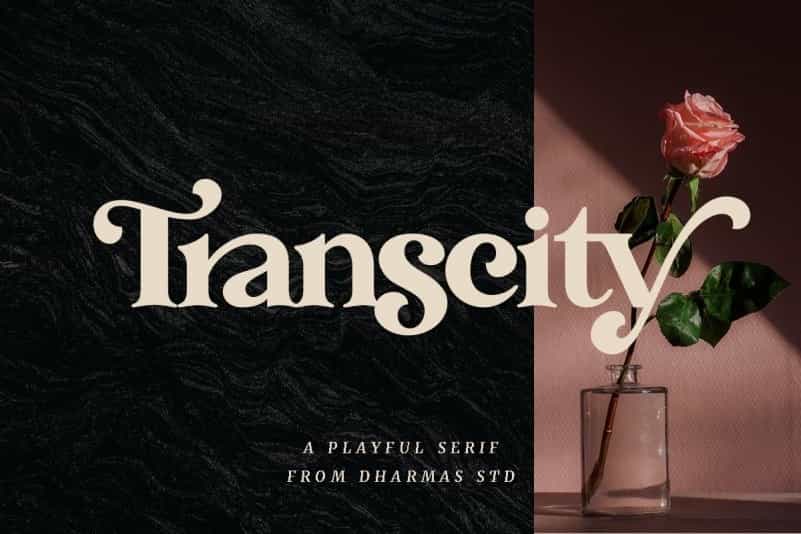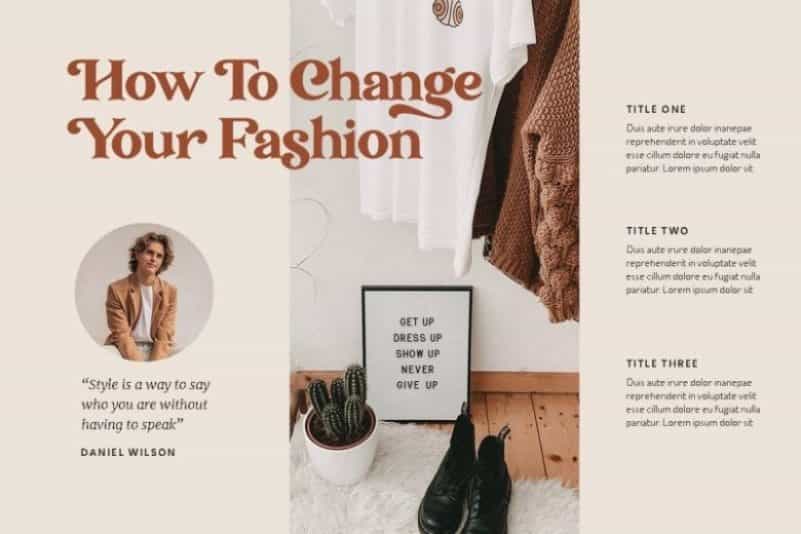
Transcity is a classical Bohemian serif font with beautiful ligatures, many special alternative glyphs, ornament and multilingual support. It ‘s an extremely versatile font that works in both large and small sizes.